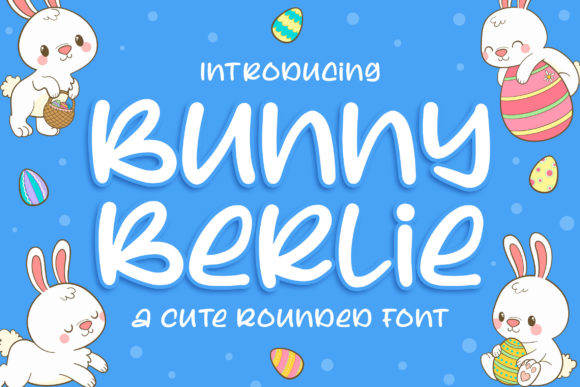
Journey into the world of Bunny Berlie, a display font that radiates charm and friendliness, beckoning you to embark on an enchanting visual adventure. Its stunning natural feel exudes an organic elegance that captivates hearts and imaginations.
Prepare to be mesmerized by the varying baseline, where each letter dances gracefully upon the page, as if guided by an invisible rhythm. The smooth lines intertwine harmoniously, guiding the eyes across words and sentences with effortless grace. Admire the gorgeous glyphs, each meticulously crafted to add a touch of uniqueness and charm to your designs. Unleash your creativity with stunning alternates, allowing you to explore endless possibilities and personalize your projects to perfection.
With Bunny Berlie, monotony takes a backseat as your designs blossom with an array of captivating styles. Craft headlines that demand attention, subheadings that entice and allure, and body text that captivates and engages. Let your messages shine with a personality that resonates with your audience, leaving a lasting impression that lingers in their minds.
Unlock the boundless potential of Bunny Berlie and embark on a creative journey where imagination reigns supreme. Discover a font that encapsulates the essence of charm and friendliness, inviting you to create designs that radiate warmth and captivate hearts. Let Bunny Berlie be your muse, your creative companion, as you transform words into mesmerizing visual expressions.